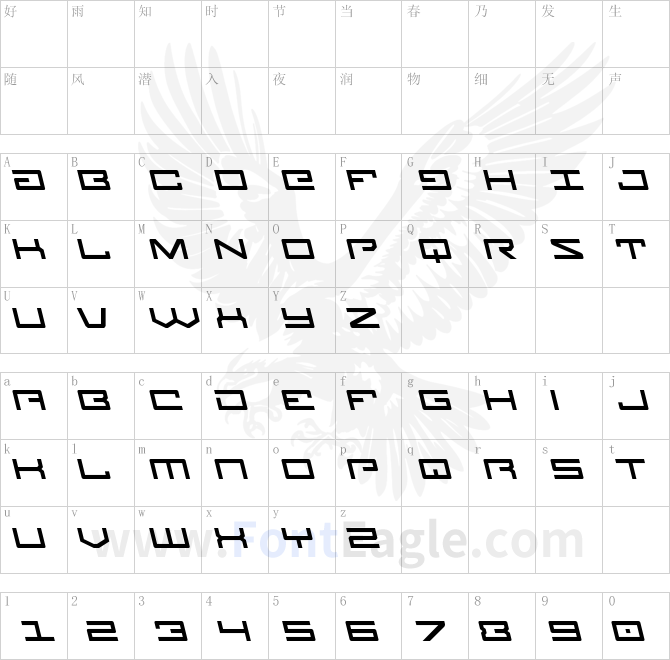
- Font name:Legion Leftalic
- Font Subfamily ID:Legion Leftalic: 2015
- Font Full Name:Legion Leftalic
- Font Version:Version 4.0; 2015
- Postscript:LegionLeftalic